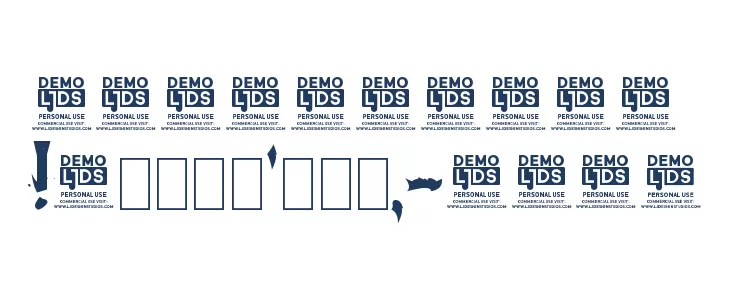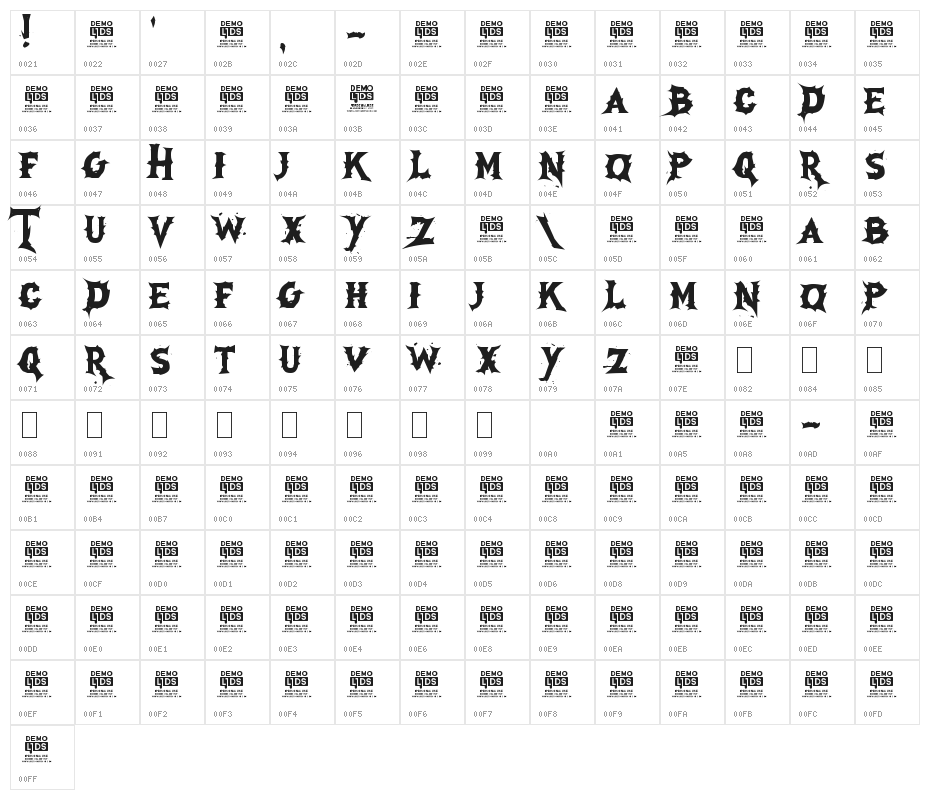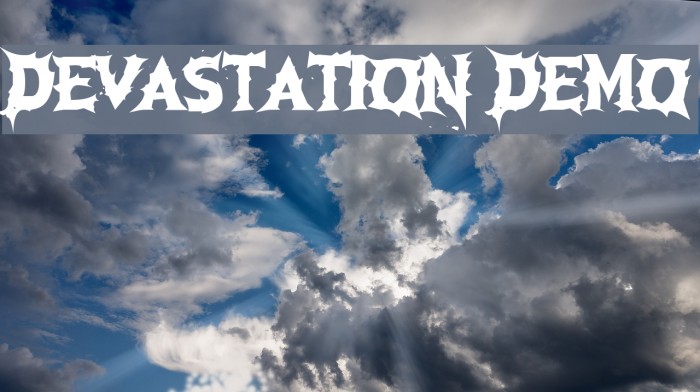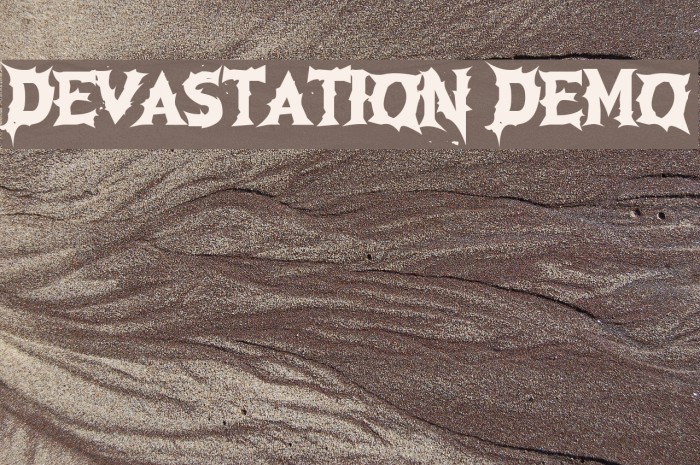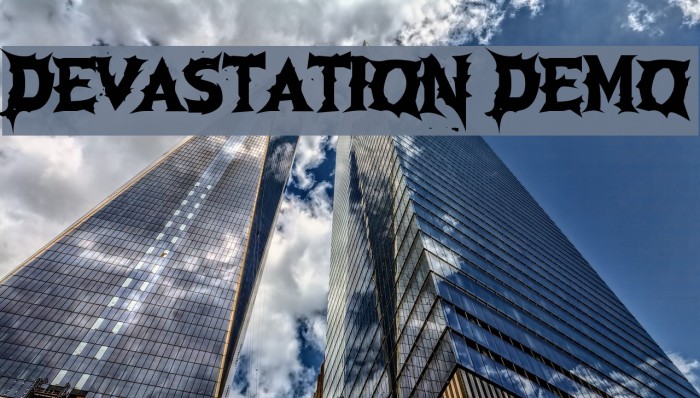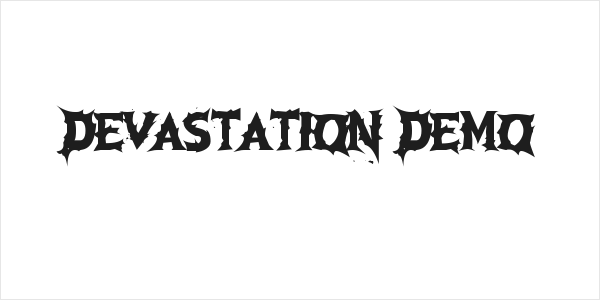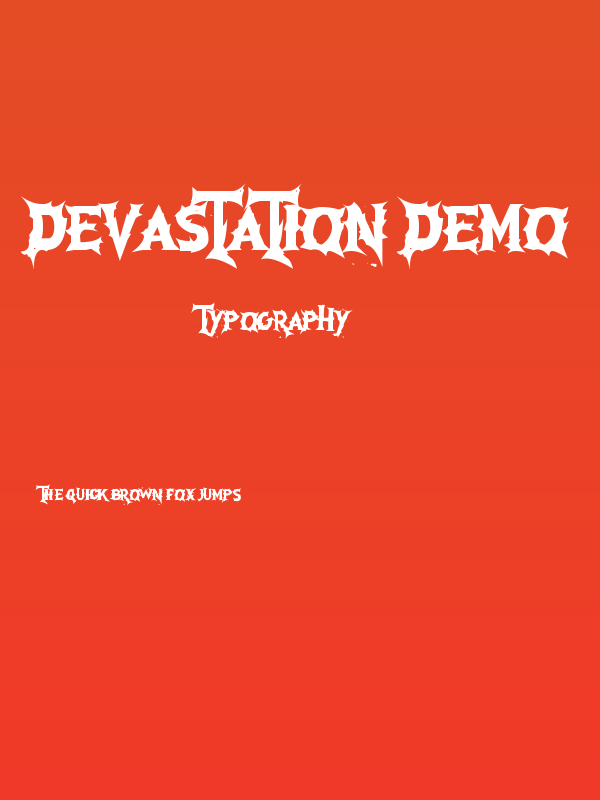
Devastation DEMO Font
Devastation DEMO Description
This font features a bold and aggressive style with sharp, jagged edges that give it a distressed and chaotic appearance. The characters are heavily stylized, with irregular strokes and pointed serifs that create a sense of movement and intensity. The uppercase and lowercase letters maintain a consistent design, emphasizing the font's unique and striking aesthetic. The numbers and special characters follow the same design principles, ensuring a cohesive look across all glyphs. This font is ideal for projects that require a dramatic and impactful visual presence.
Proposed ProjectsIdeal for horror-themed posters, album covers, video game titles, and edgy branding projects.